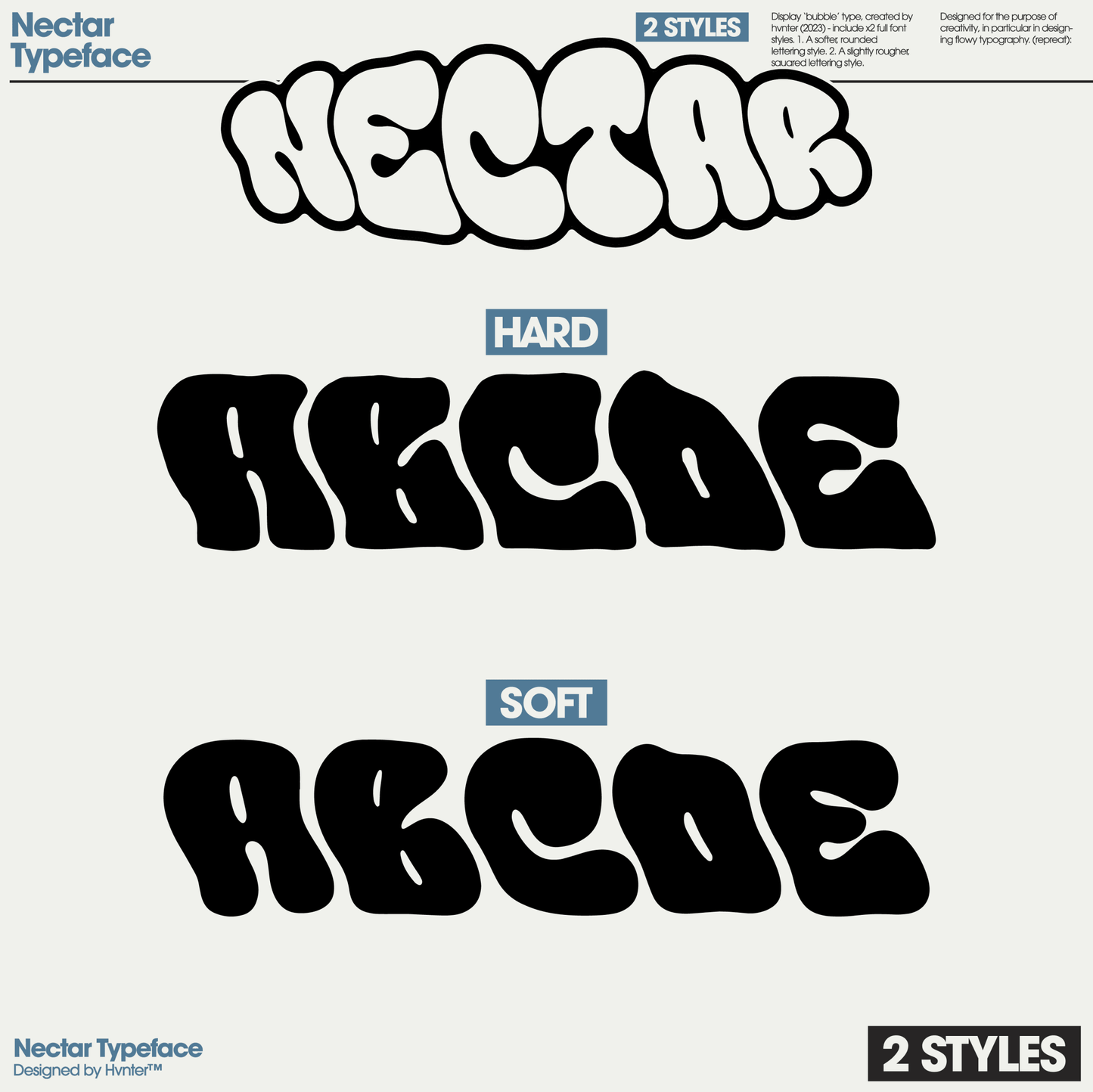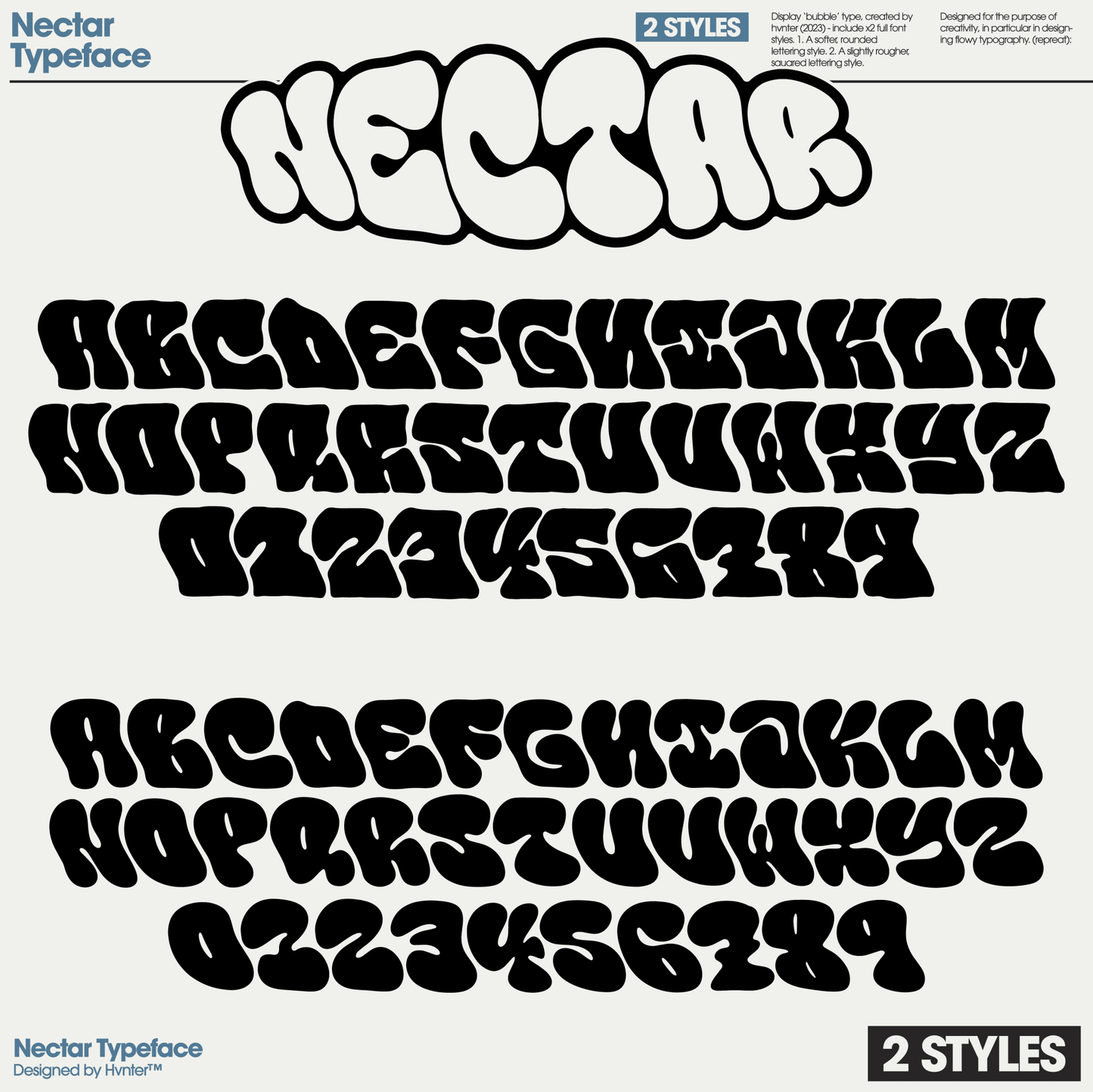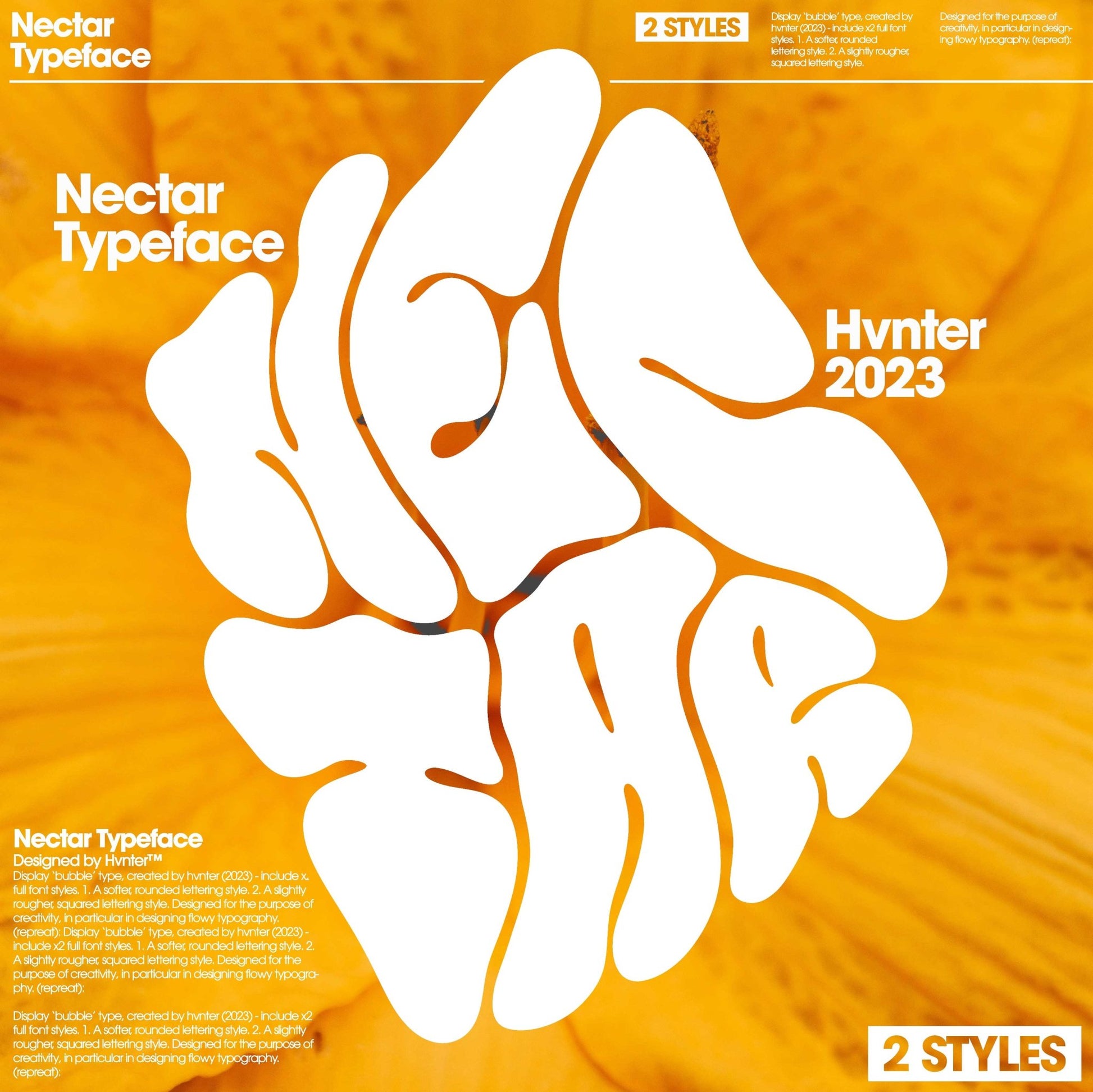
NECTAR Typeface — Hand-Drawn Display Font (2 Styles)
Nectar is poured.
This one is dipped in honey — thick, golden, slow. Every curve swells like it’s been pulled from a jar and allowed to fall naturally into place. Nothing sharp for the sake of it. Nothing mechanical. Just weight, warmth, and movement.
Nectar is a hand-drawn display typeface built for flow. Letters don’t sit still — they stretch, soften, lean into each other like liquid finding its level.
You get two distinct expressions of the same sweetness:
Soft — rounded, pillowy, almost melting. These forms feel freshly drizzled. Perfect for bold posters, album artwork, packaging, street graphics, and branding that needs warmth with impact.
Hard — slightly more structured, like honey beginning to crystallize. Still organic, but with more edge. More bite. More attitude.
Both styles include:
- A–Z
- 0–9
What makes Nectar powerful is texture. The exaggerated curves. The weight distribution. The way each letter feels like it’s been shaped by gravity instead of grids.
This is typography as the focal point. The headline is the artwork.
Nectar works when you want:
- Bold, tactile posters
- Psychedelic or retro-inspired branding
- Music visuals with presence
- Packaging that feels handcrafted
- Streetwear graphics with softness and punch
- Campaign typography that refuses to feel templated
Nectar doesn’t shout. It drips!